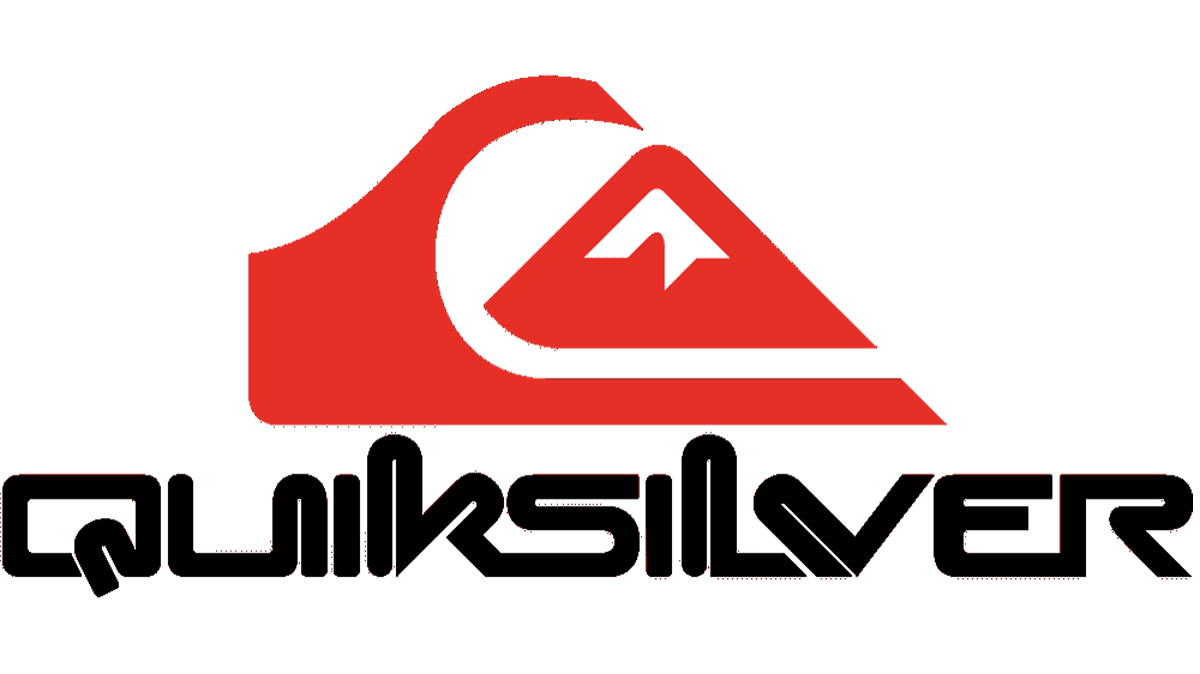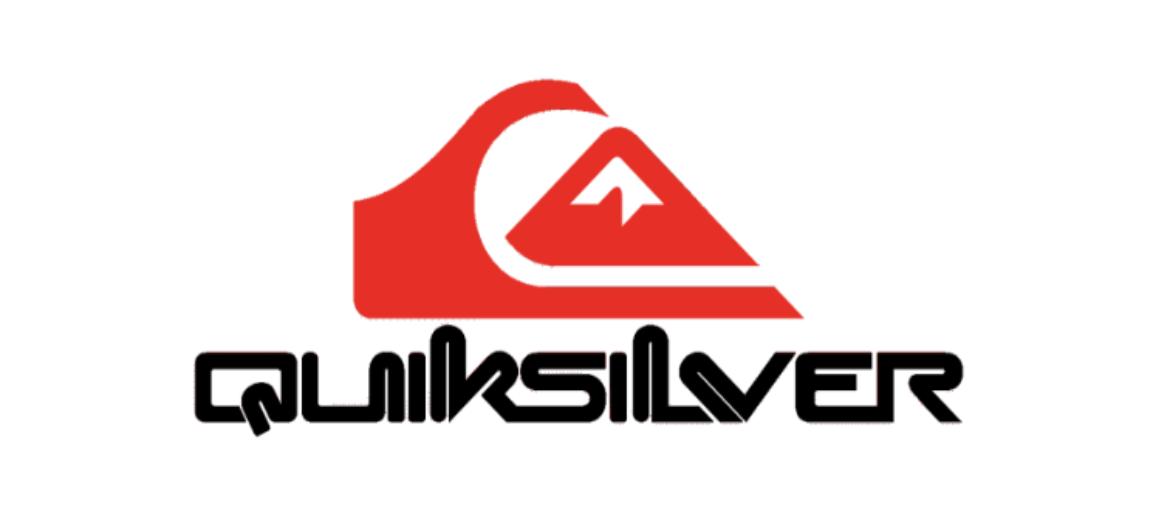
Quiksilver Font
What Font is Quiksilver?
Quiksilver Font is represented by Xephyr, a dynamic typeface created by Iconian Fonts. This donationware font perfectly reflects the adventurous and youthful energy of the Quiksilver brand, featuring bold lines and modern letter shapes that evoke surf, snow, and street culture. Its contemporary design makes it ideal for branding, apparel design, or digital artwork that aims to capture an active, free-spirited lifestyle. You can download the Xephyr font via the link below.
About Quiksilver
Quiksilver is an Australian surfwear and outdoor sports brand founded in 1969 in Torquay, Victoria. Known for its surfing, skateboarding, and snowboarding apparel, Quiksilver quickly became a symbol of coastal culture and adventure. The brand’s iconic wave logo and commitment to quality gear have made it a favorite among athletes and enthusiasts worldwide, representing a perfect blend of performance, creativity, and laid-back style.